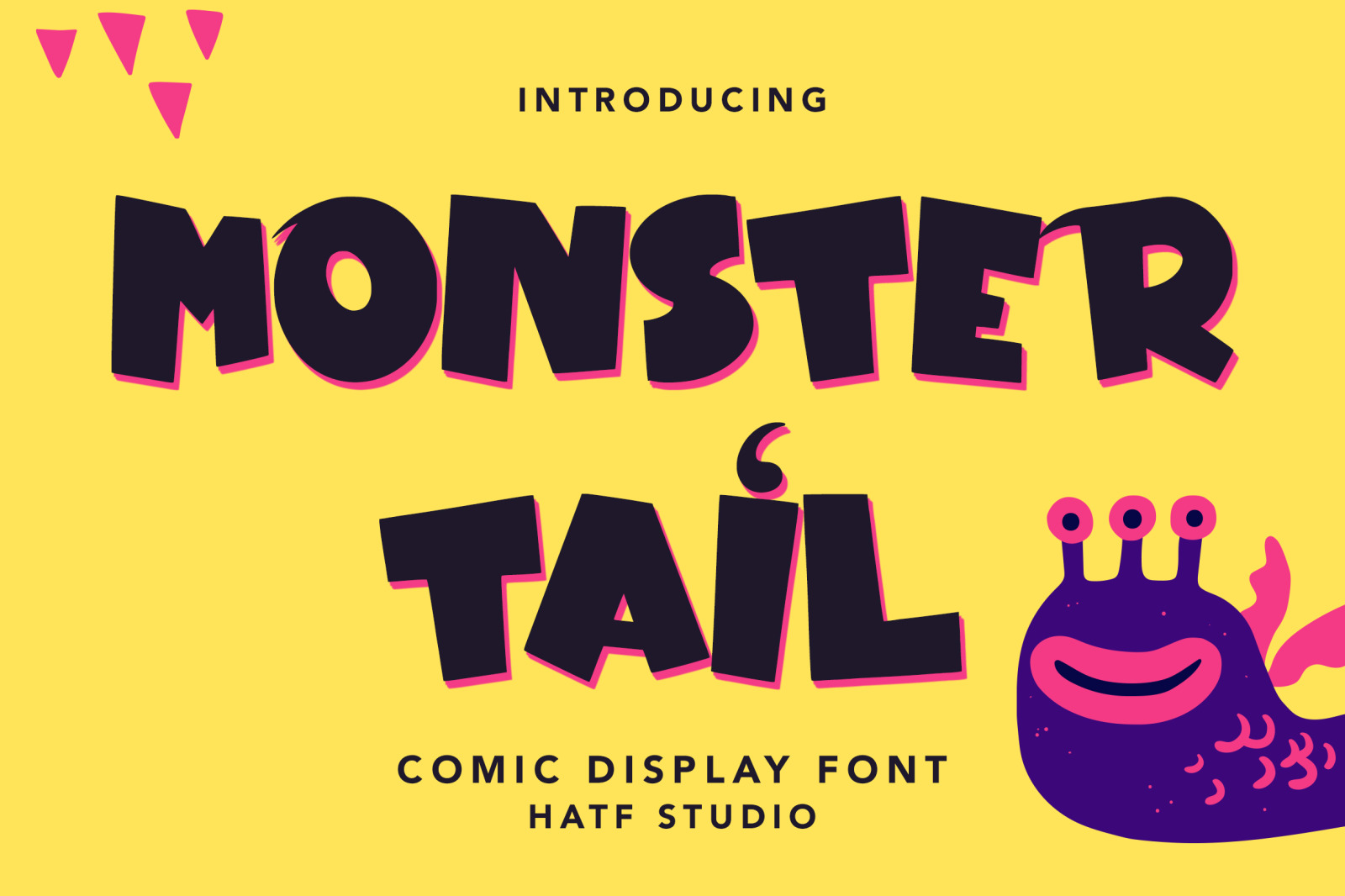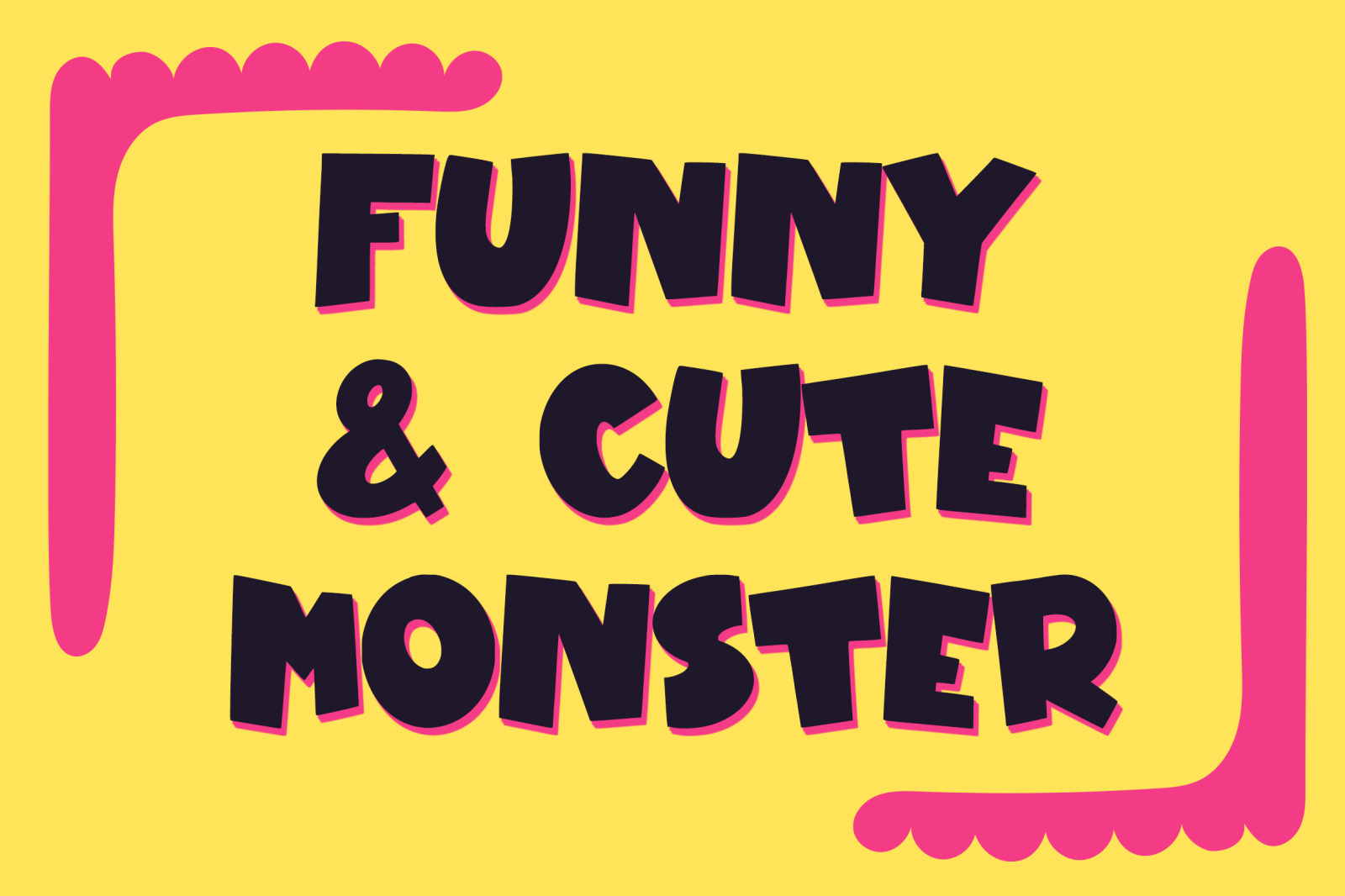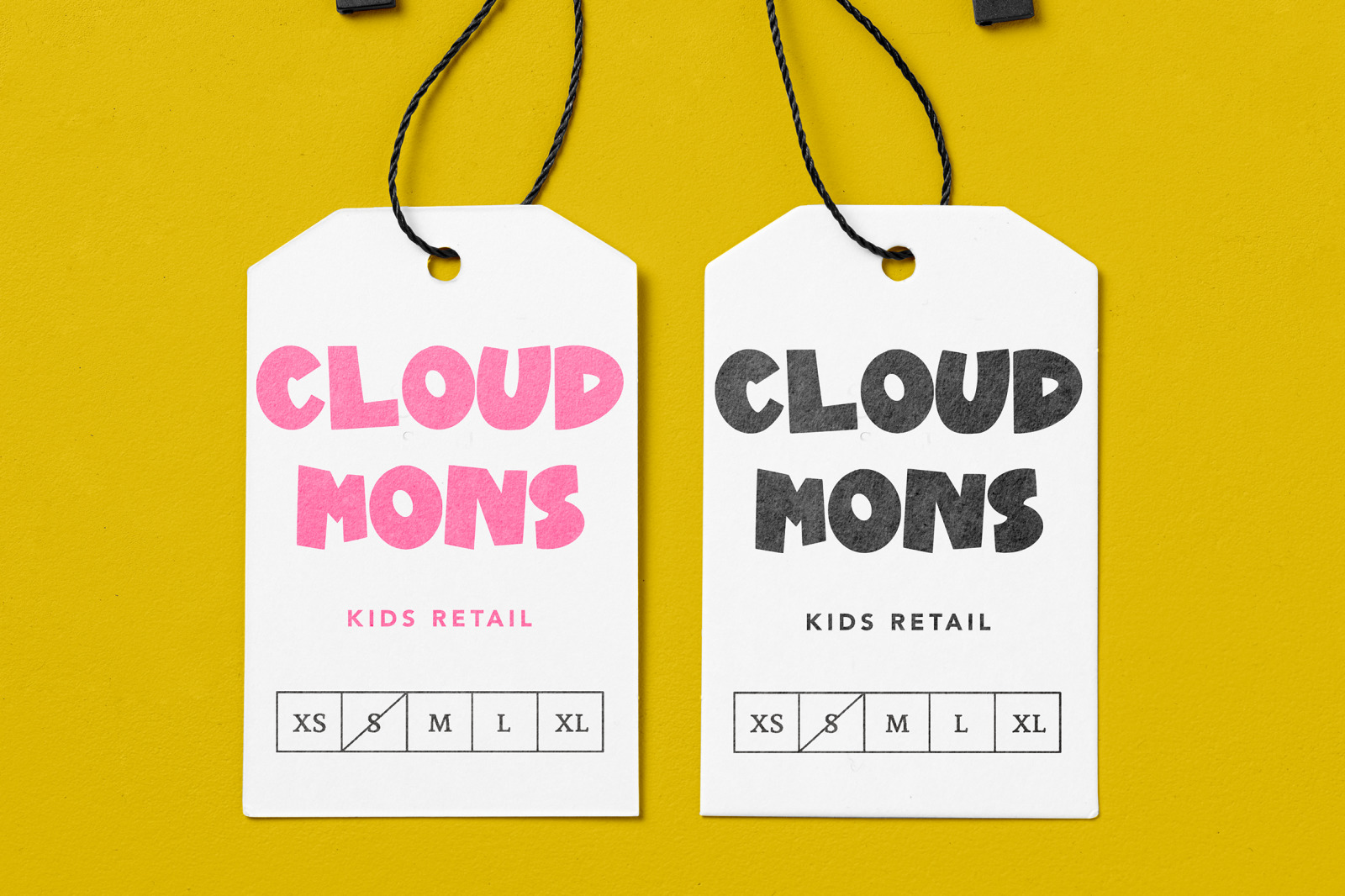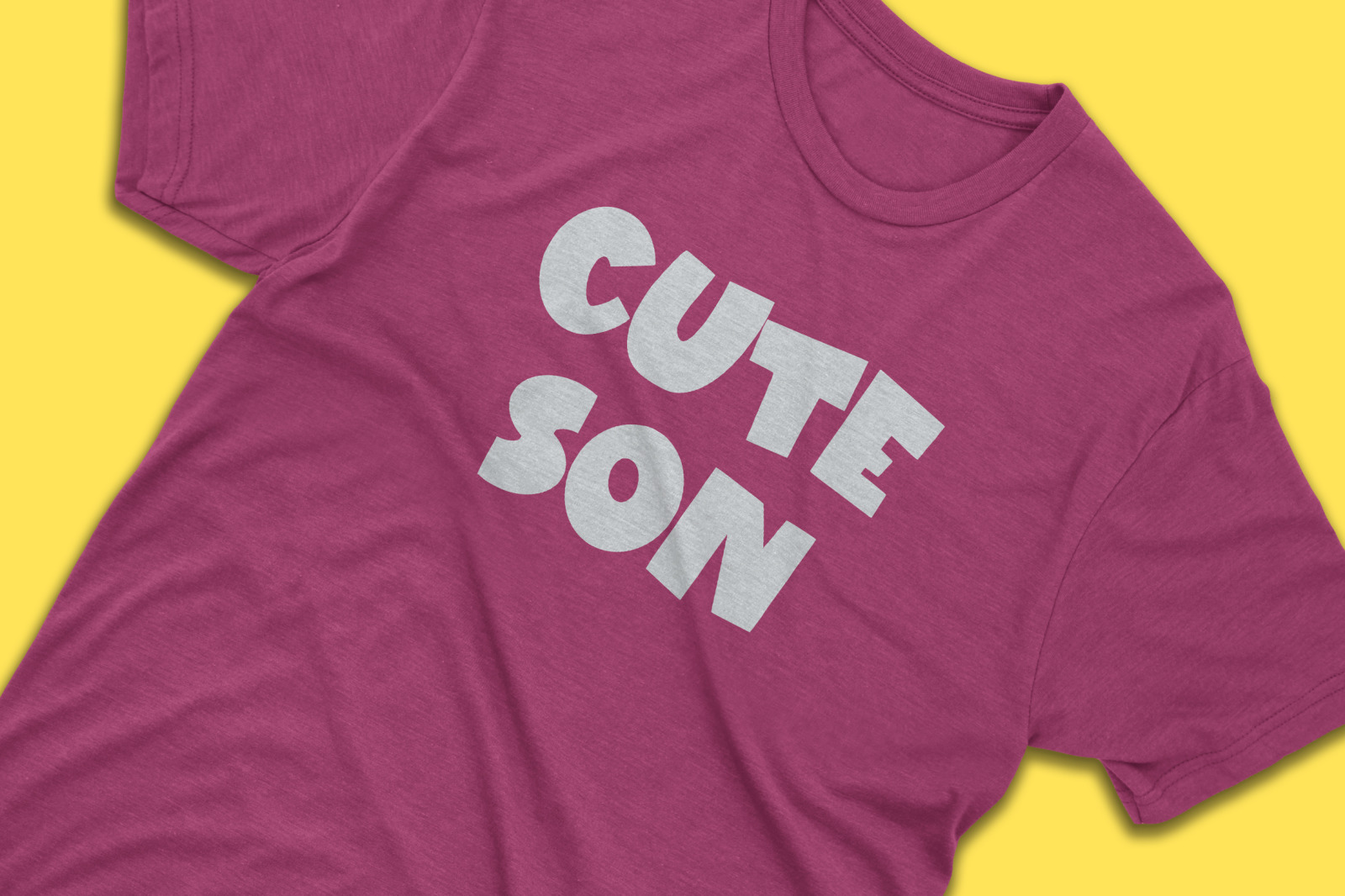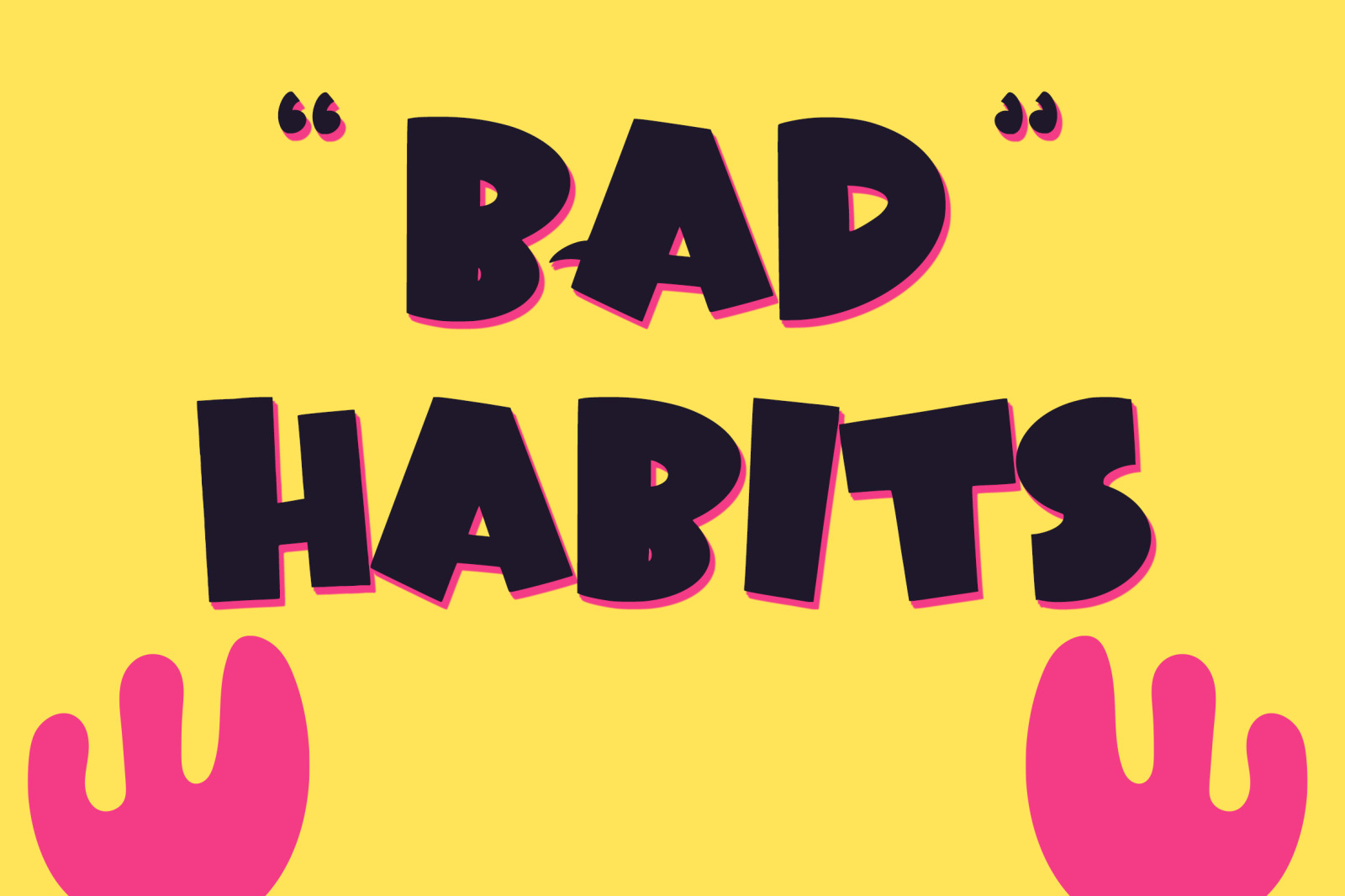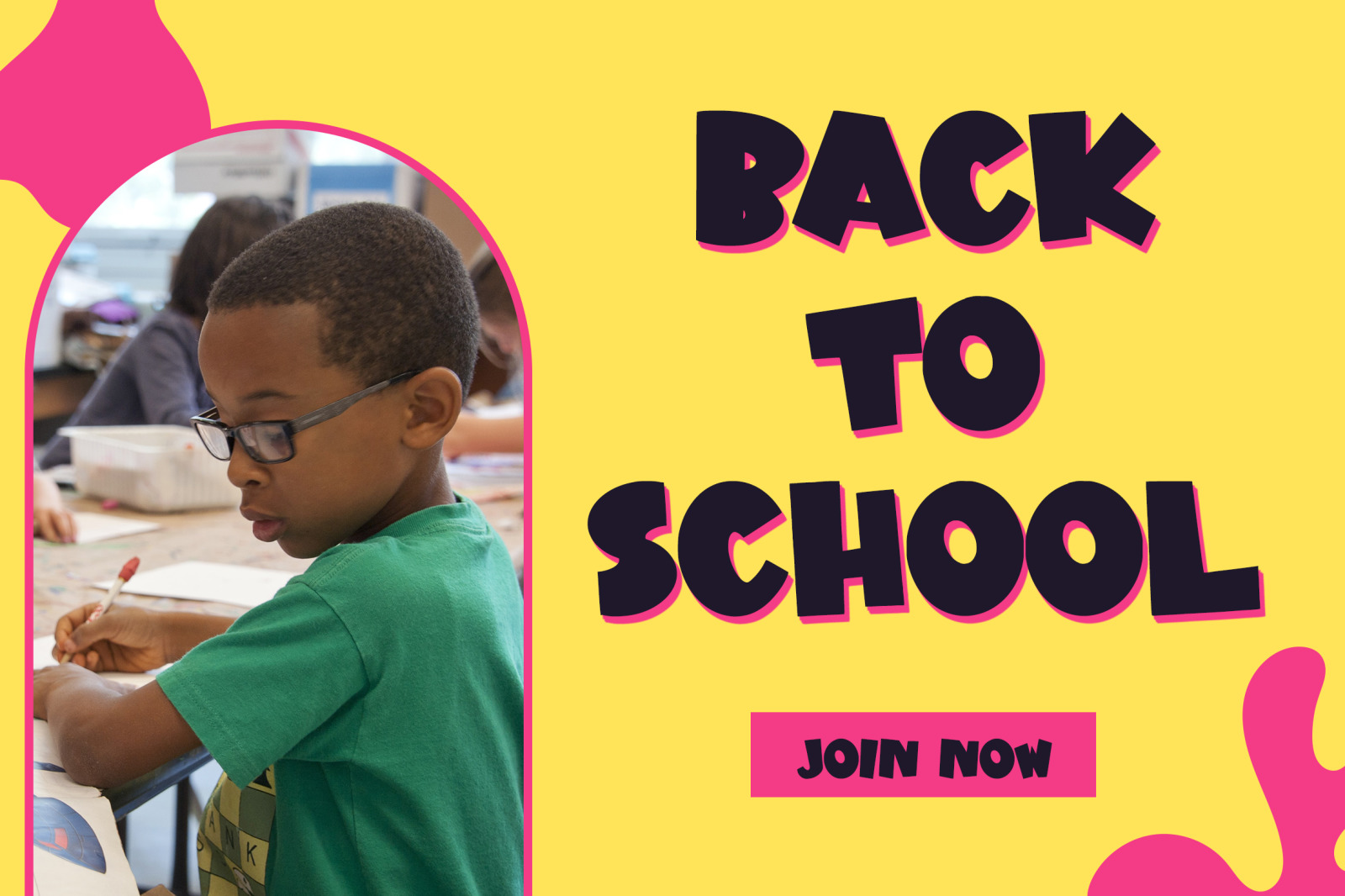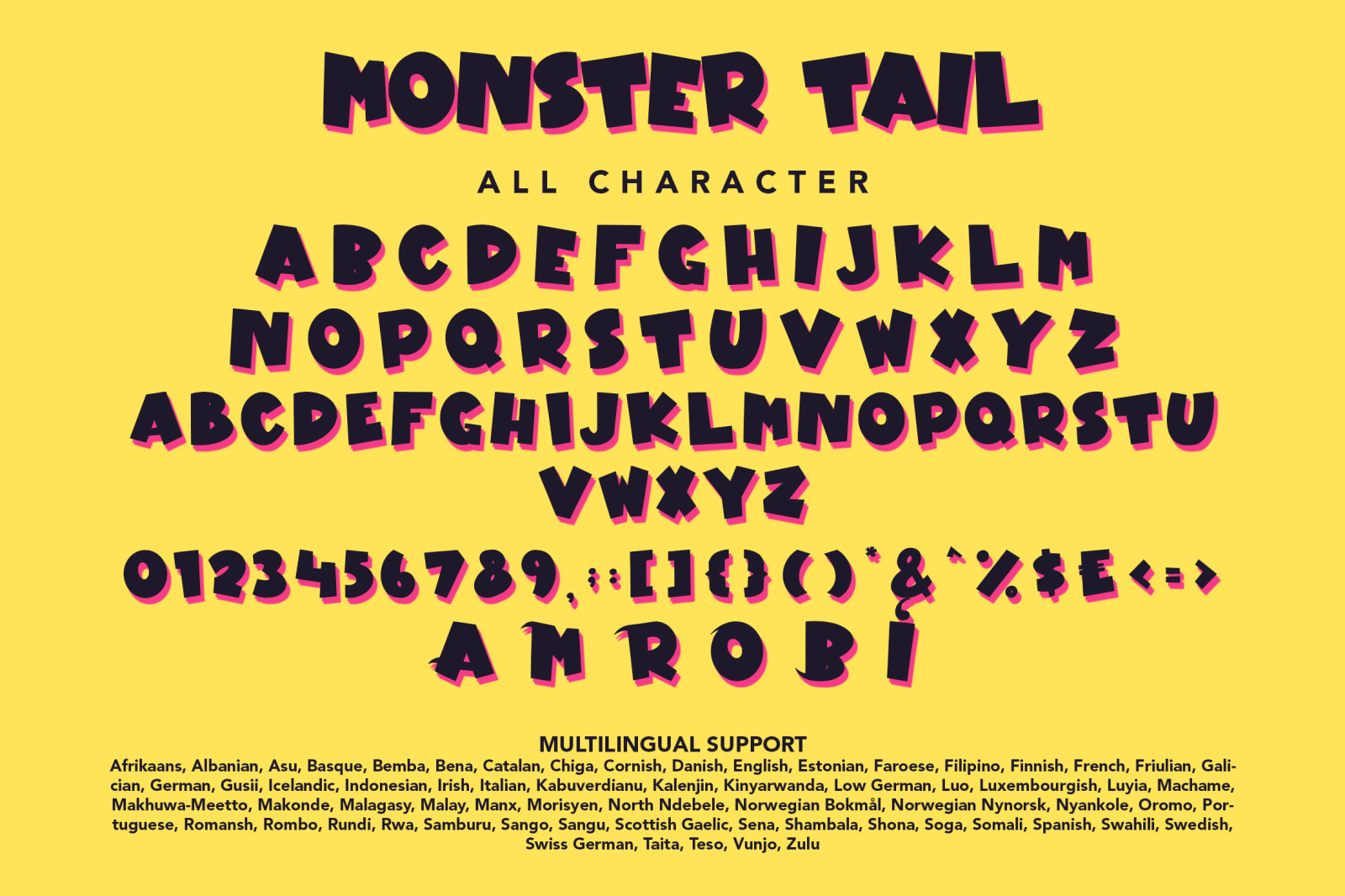
Monster Tail FOnt
Is a halloween comic display font with distinctive handwritten characters perfect for branding projects, logos, wedding designs, media posts, advertisements, product packaging, product designs, labels, photography, watermarks, invitations, stationery, and any project who need handwritten dishes.